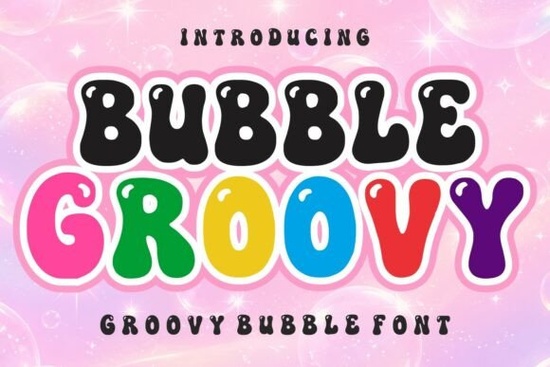
If you are looking for a way to bring instant nostalgia to your projects, Bubble Groovy Font stands out as a top choice for designers and crafters alike. This typeface combines the softness of rounded shapes with the vibrant energy of the late sixties and seventies. Instead of forcing you to choose between readability and style, this collection delivers both. You can use it to grab attention on social media or to add a playful touch to physical merchandise.
Why Rounded Letterforms Work for Your Brand
The design of Bubble Groovy Font relies on thick, glossy lines that feel approachable rather than intimidating. In graphic design psychology, sharp angles often communicate seriousness or urgency, while curves suggest friendliness and creativity. When you apply this specific aesthetic to a logo or a headline, you signal that your project is open and engaging.
This style is particularly effective when paired with bright color palettes. Think yellow, orange, mint green, and pastel pink backgrounds. The contrast between the dark lettering and the light background ensures your message pops without becoming hard to read. If your current project feels too rigid or corporate, switching to this display font can instantly soften the tone. It helps bridge the gap between professional presentation and casual conversation.
Ideas for Merchandise and Craft Projects
Many creators find success using this font for Print-on-Demand products because the legibility holds up even when scaled down. A common strategy involves printing this text on t-shirts, mugs, or tote bags. Because the letters are chunky, they withstand the stress of heat presses and vinyl cuts better than thin, delicate scripts often struggle with. If you run a sticker business, the distinct outline of the glyphs allows you to die-cut around individual characters or entire phrases easily.
You might also consider using it for party supplies. Birthday invitations, banners, and cupcake toppers benefit from this festive look. It evokes memories of summer vacations and carefree times, which resonates well with children's parties or themed events. When creating digital content for Instagram or Pinterest, large typography graphics perform exceptionally well since users scroll quickly. The bold appearance stops the thumb motion long enough for a viewer to register the offer.
Comparing Styles to Find the Right Match
Tips for Layout and Layering
To get the best results, treat the letters as graphical elements rather than just text. You can layer multiple colors behind the main stroke to create a shadow effect, giving the illusion of depth. This technique mimics the glossy look described in the original product design. Experiment with spacing; tight tracking adds to the retro poster feel, while looser kerning makes the words breathe easier for smaller displays.